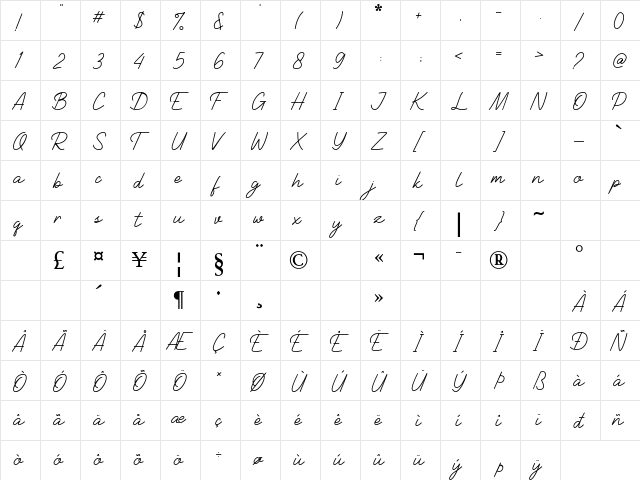
Stanford Signature Regular
| Designer | Nofi Sofyan Hadi |
Design Context for Stanford Signature Typeface
Stanford Signature is a composed and adaptable typeface that performs quietly and consistently across a wide range of design contexts.